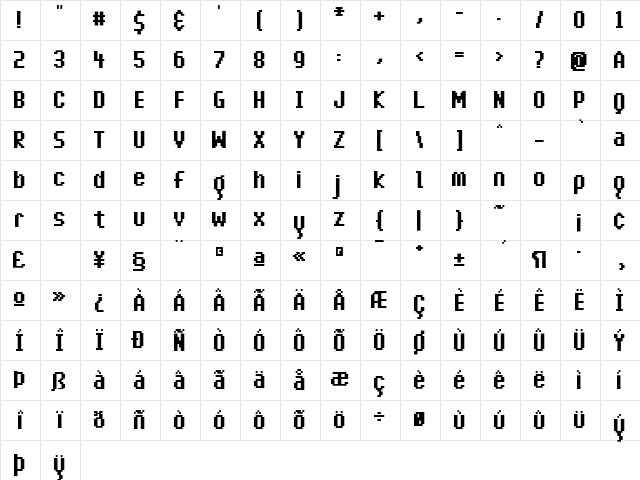
BionikaBlack Heavy Free Font
BionikaBlack Heavy
Complete BionikaBlack Heavy glyph index. Displaying only characters natively supported by BionikaBlack Heavy font.
Design Context for BionikaBlack
BionikaBlack is a composed and adaptable typeface that performs quietly and consistently across a wide range of design contexts.
Pro Tip: Use BionikaBlack in both headline and body roles to test its range before committing to a single application.